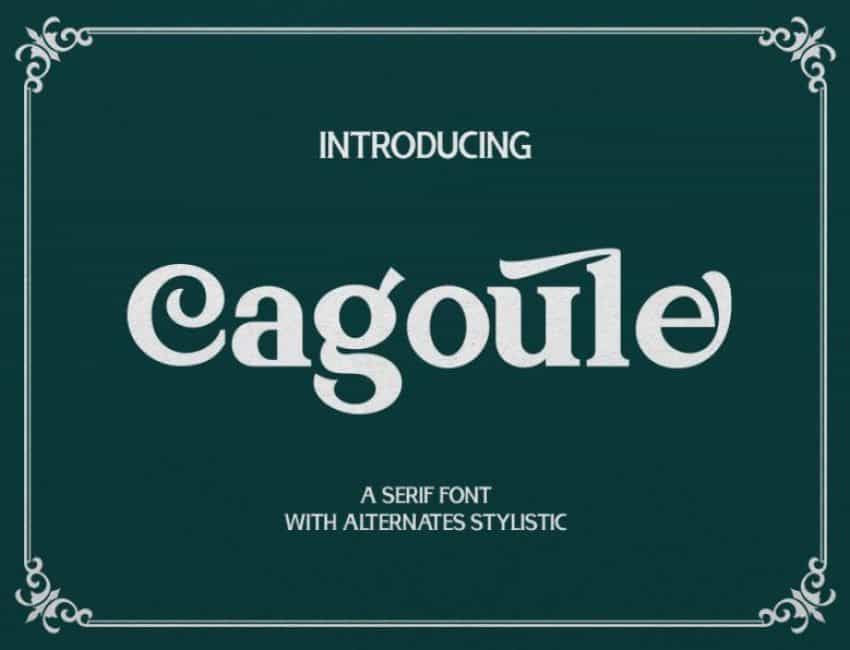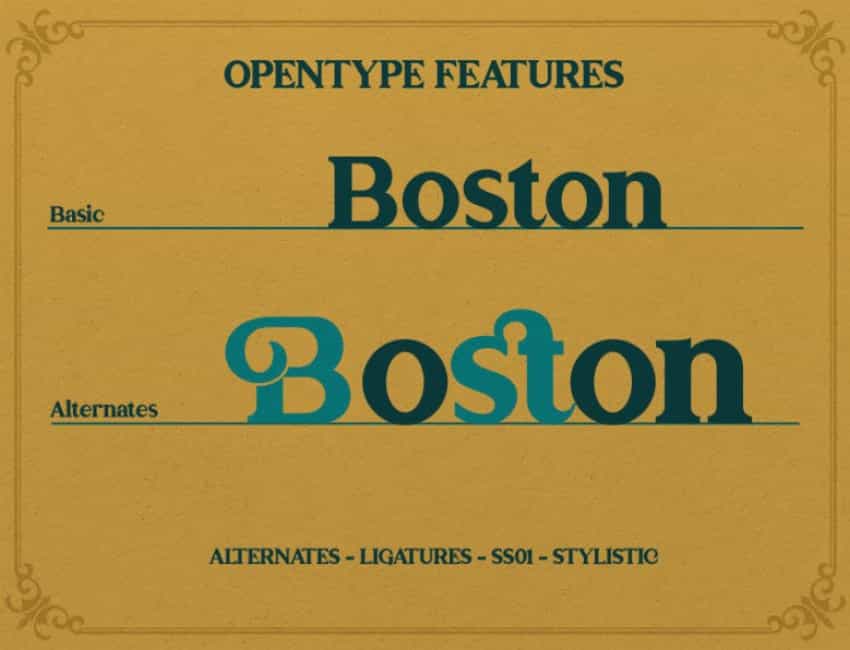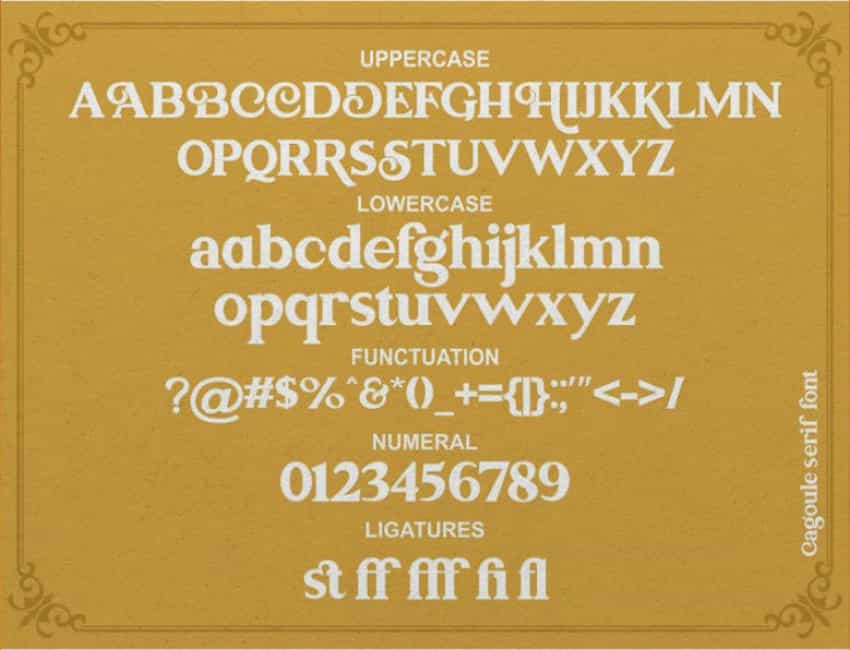
Cagoule is an exquisite serif typeface with elegant and classy characteristics that makes for stunning designs such as wedding invitations, thank-you cards, greeting cards logos and more. It will add the perfect finishing touch to any design! It makes an incredible first impression.